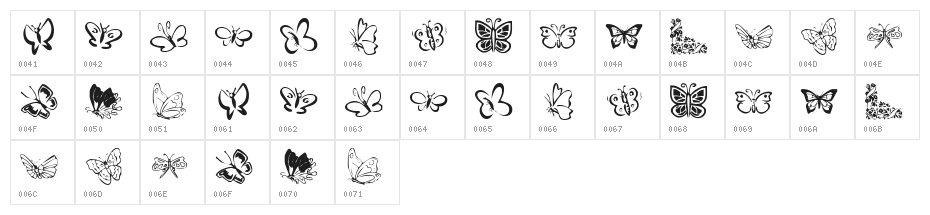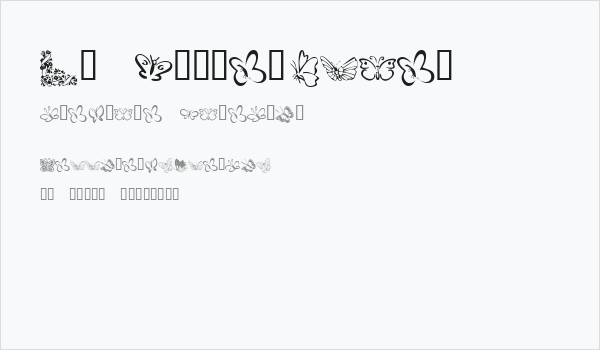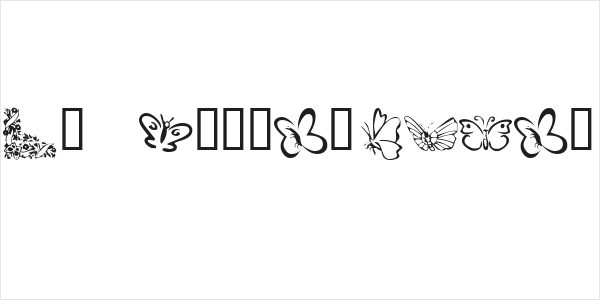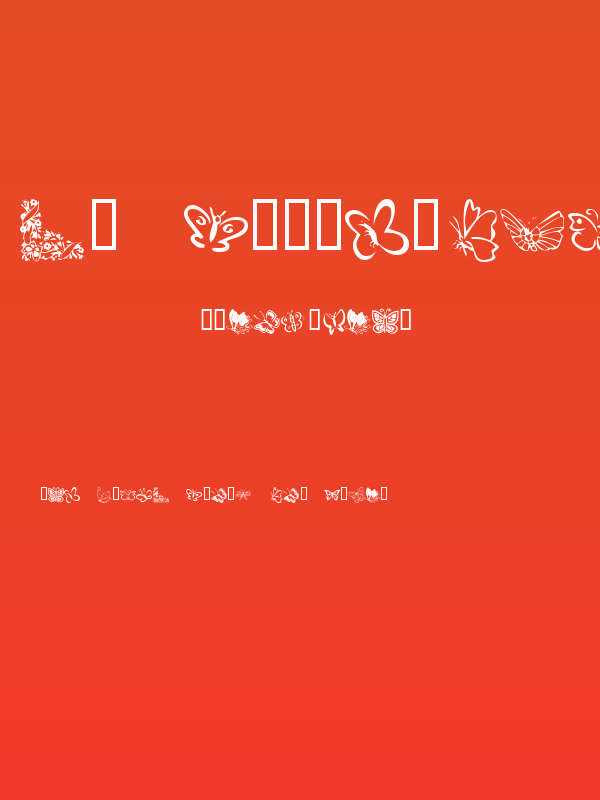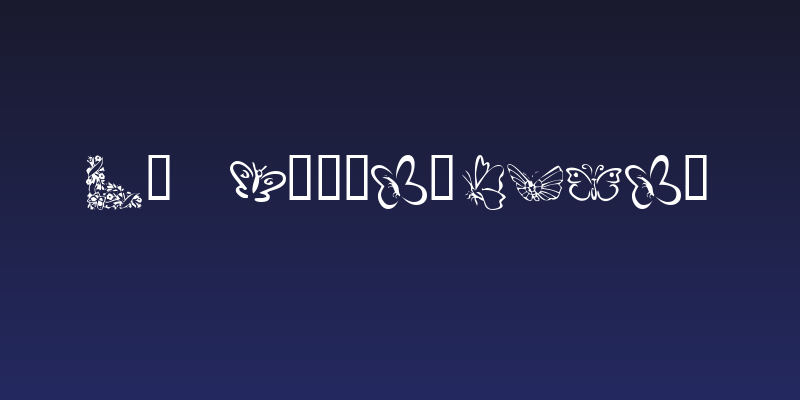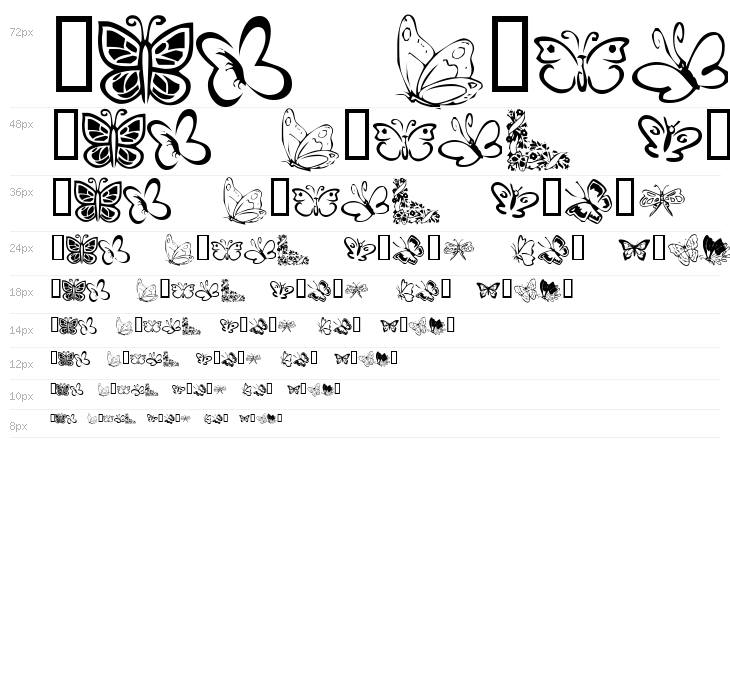
KR Butterflies Font
KR Butterflies Description
This is not a traditional font but a decorative collection of butterfly illustrations. Each character is represented by a unique butterfly design, showcasing a variety of styles from simple outlines to intricate patterns. The designs are whimsical and artistic, capturing the delicate and graceful nature of butterflies. These illustrations can be used to add a playful and natural touch to any project, making them ideal for creative and decorative purposes.
| Use Case | Decorative elements, Art projects |
| Proposed Projects | Ideal for use in decorative projects, scrapbooking, greeting cards, invitations, and any design requiring a whimsical or nature-inspired theme. |